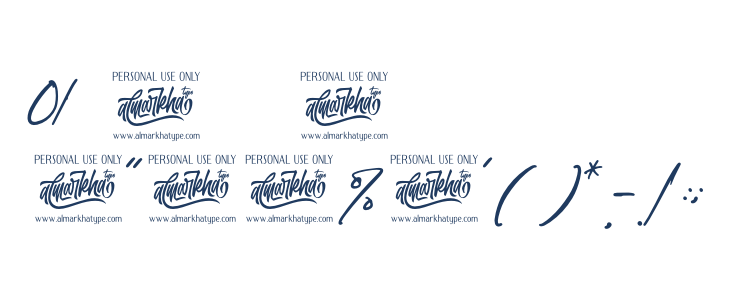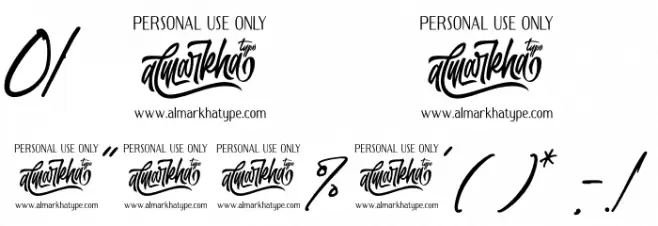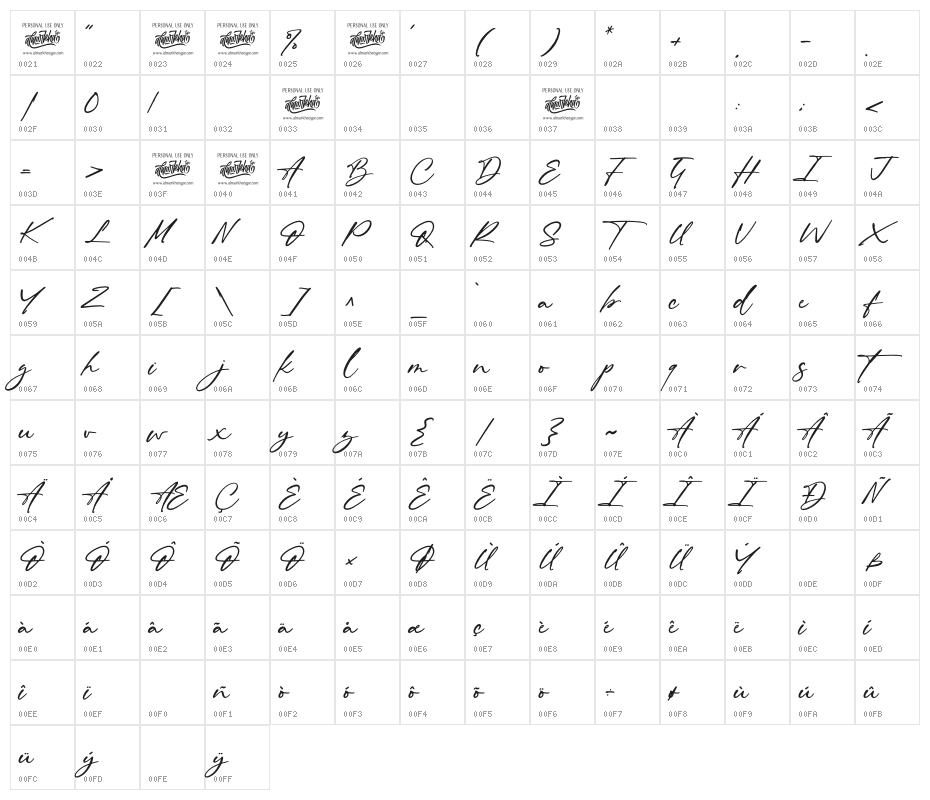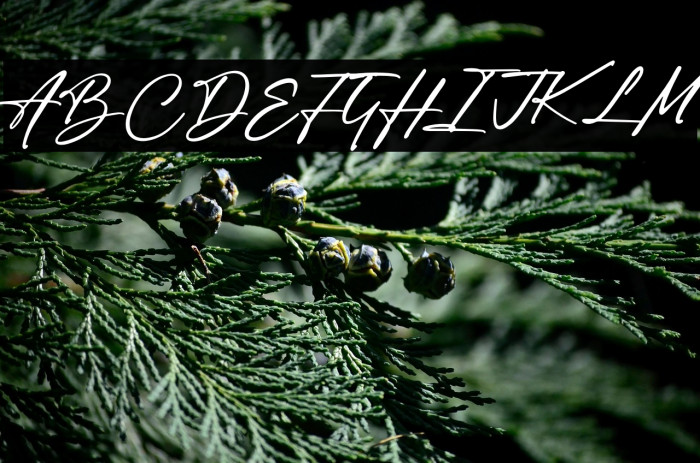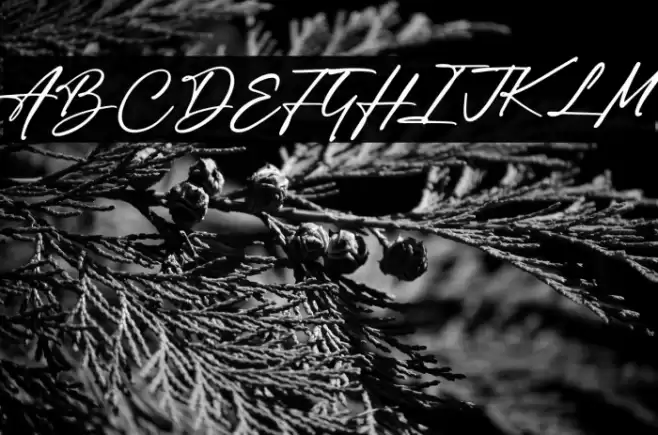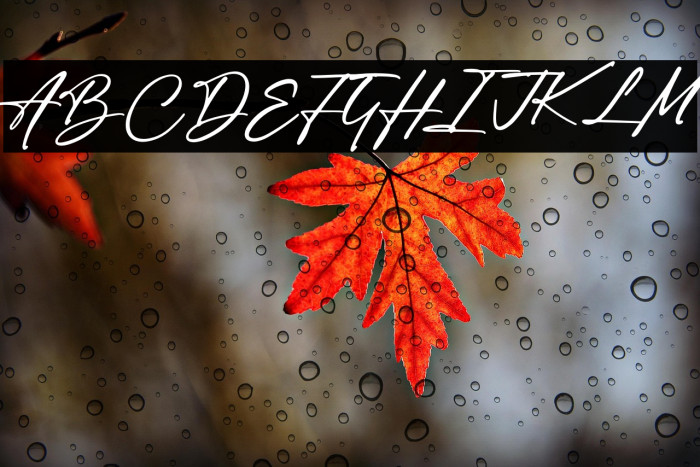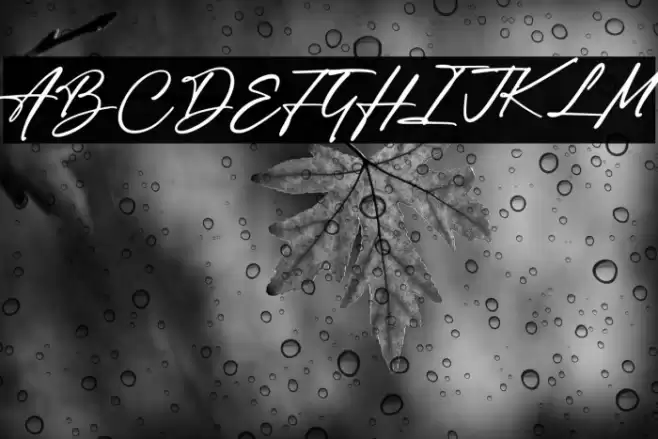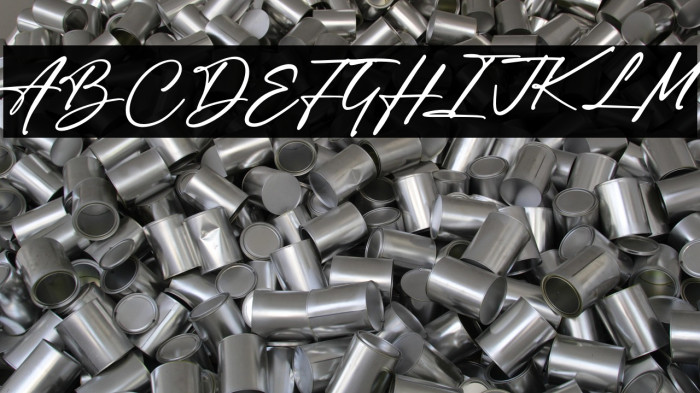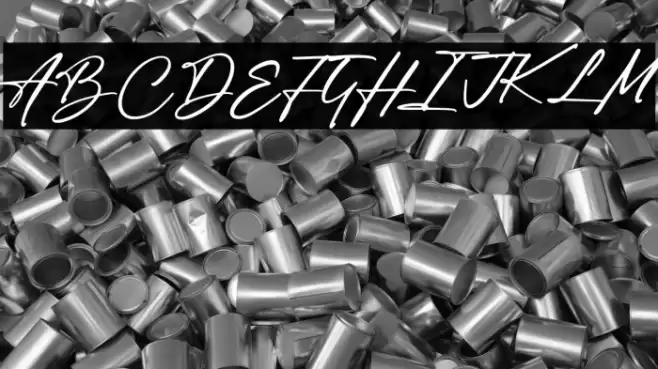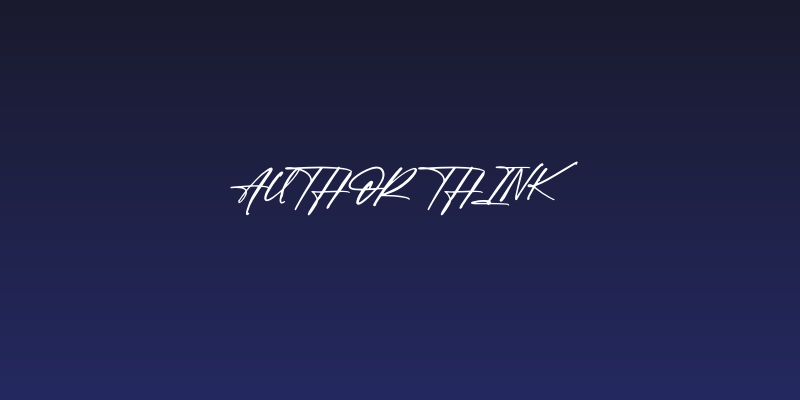
Author Think Font
Author Think Description
This font features an elegant and fluid script style, characterized by its flowing, interconnected letters that mimic the natural motion of handwriting. The uppercase letters are bold and expressive, with a slight slant that adds dynamism to the text. The lowercase letters maintain a consistent style, with smooth curves and loops that enhance readability while preserving the artistic flair. The numerals and special characters are crafted to match the overall aesthetic, ensuring a cohesive look. This font is ideal for projects that require a personal touch, such as invitations, greeting cards, or branding materials. Its unique style makes it stand out, adding a touch of sophistication and creativity to any design.
| Proposed Projects | Ideal for invitations, greeting cards, branding materials, and any project needing a personal touch. |